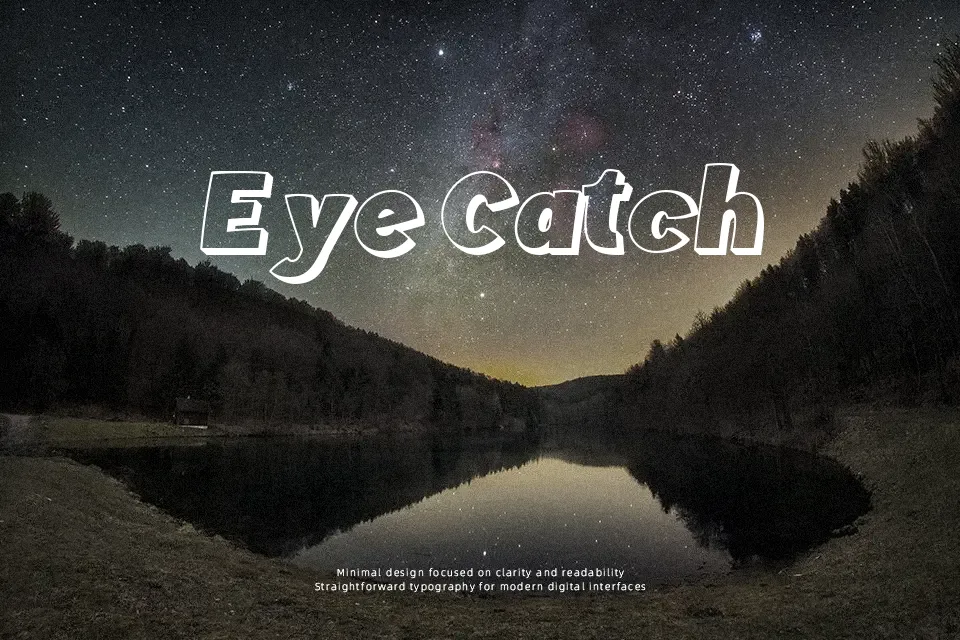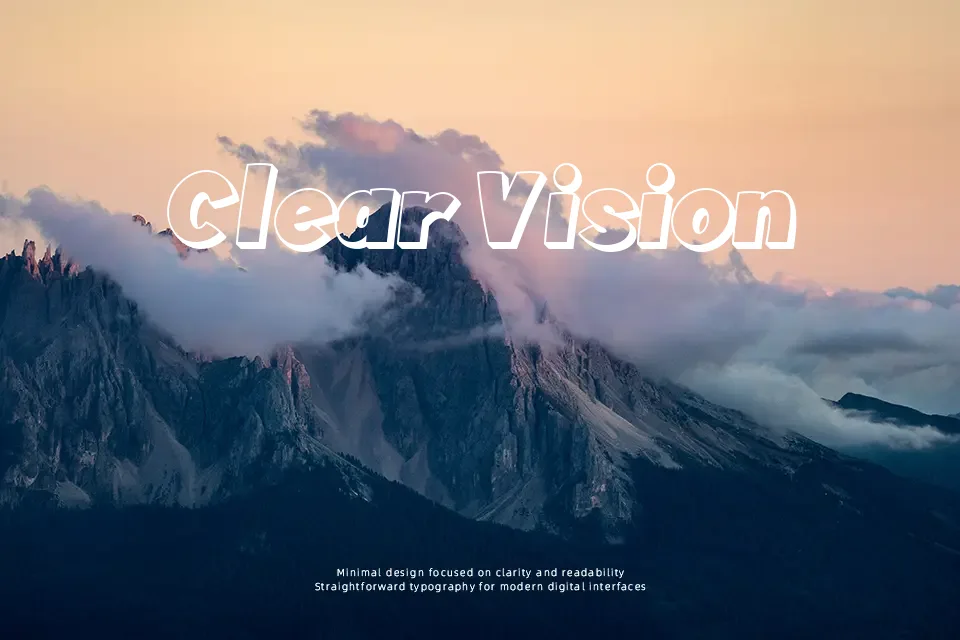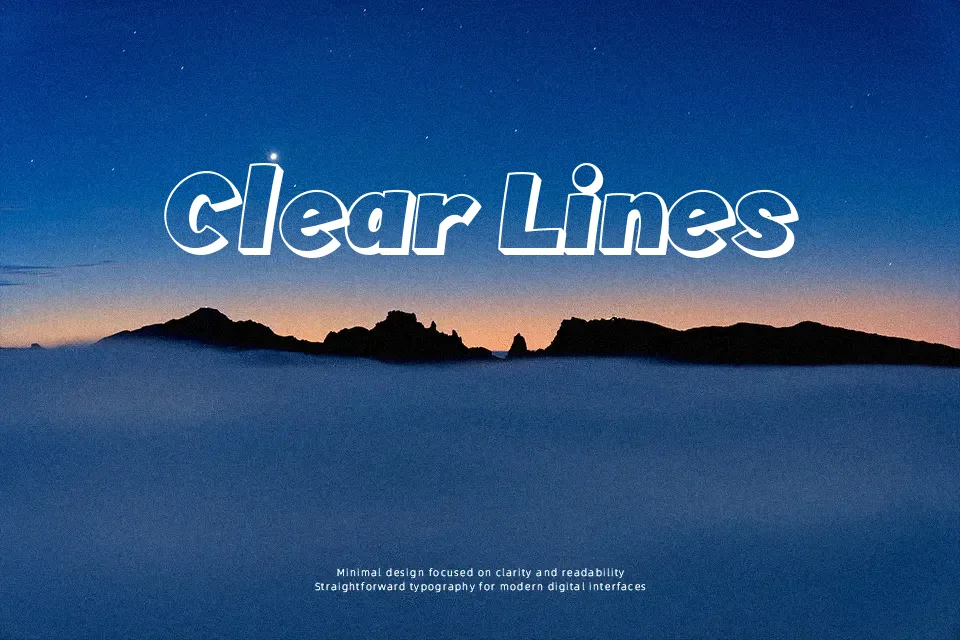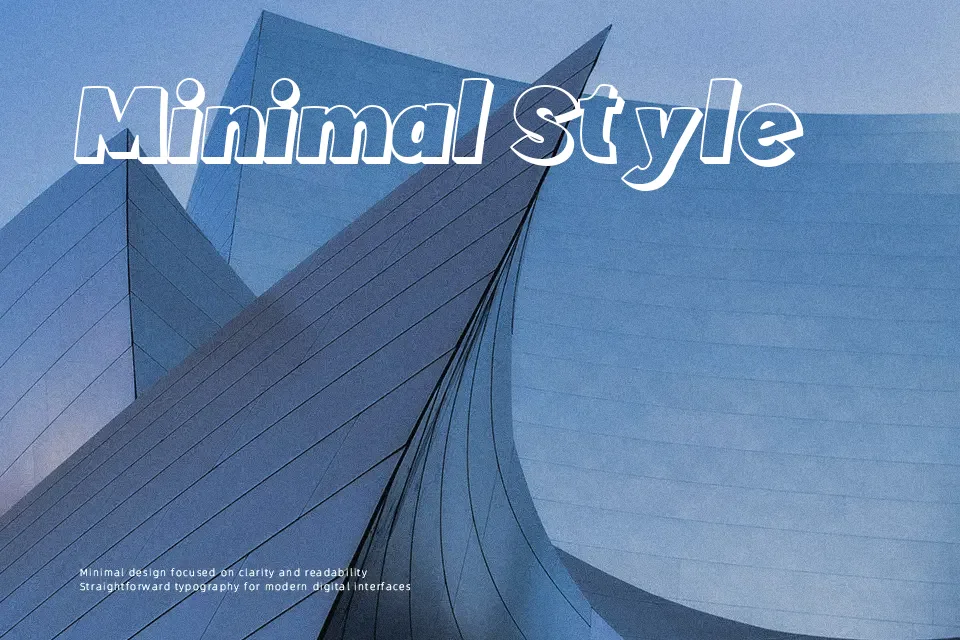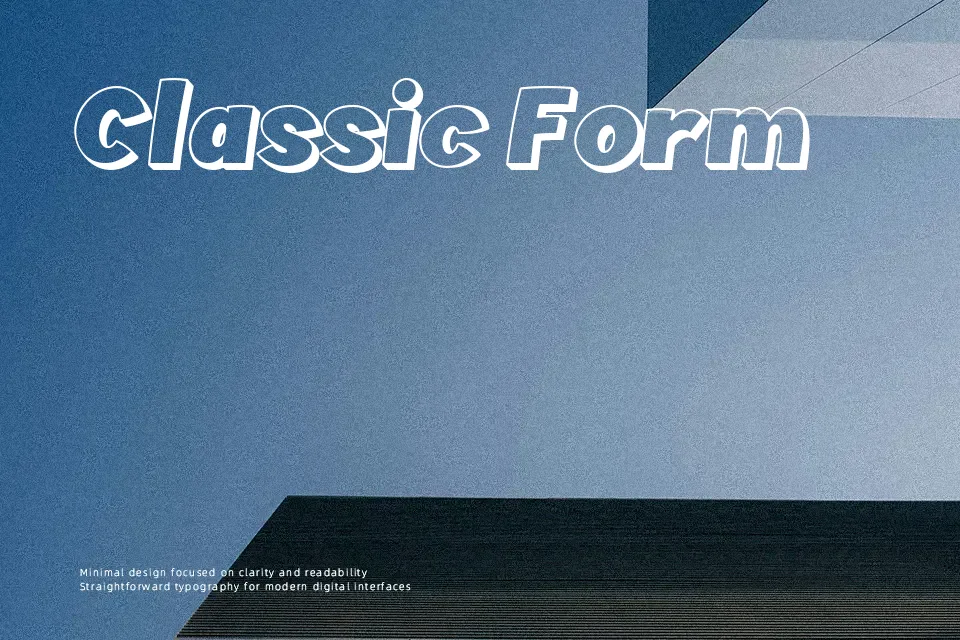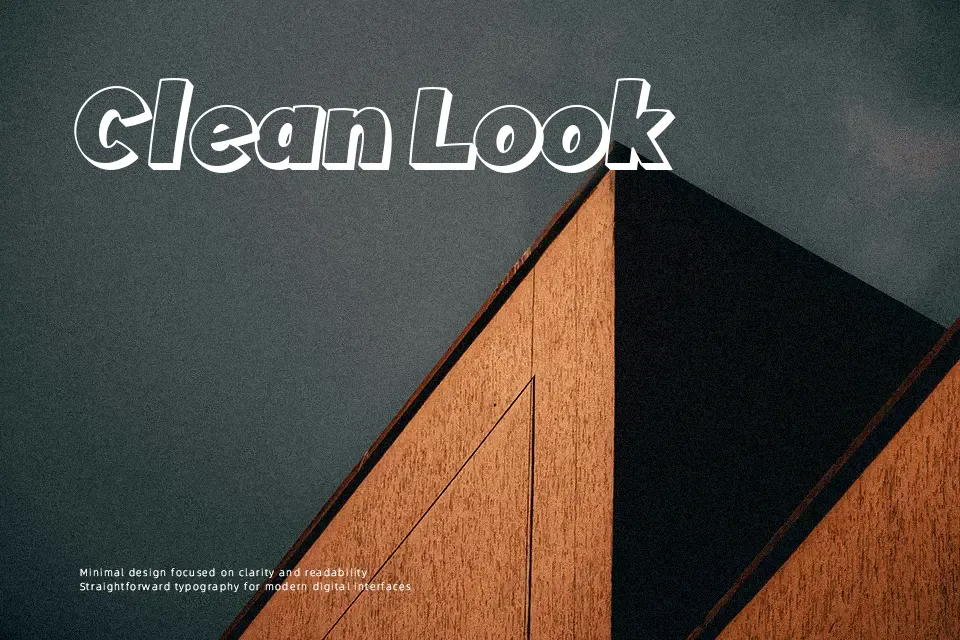
Chopic Font
Chopic Font features substantial, dimensional letterforms with exaggerated stroke weight, rounded contours, and an extruded shadow effect characteristic of retro comic art. The design maintains tight character spacing and sturdy proportions that create immediate visual punch across large banner headlines, animated title sequences, and themed merchandise graphics. While individual characters are instantly recognizable at display scale, the heavy structural depth reduces clarity when scaled down to smaller sizes. The dense extruded geometry makes continuous reading impractical in extended editorial settings. Overall, the typeface provides robust graphic presence when applied to concise, high-energy text elements that demand lively visual emphasis.
Best For: comic book covers, animated series titles, children’s game packaging, arcade event posters
Not Ideal For: continuous body text, corporate financial reports, compact user interfaces, legal documentation
Perfect for 3d, gaming, and headline, with a bold and cartoon style.